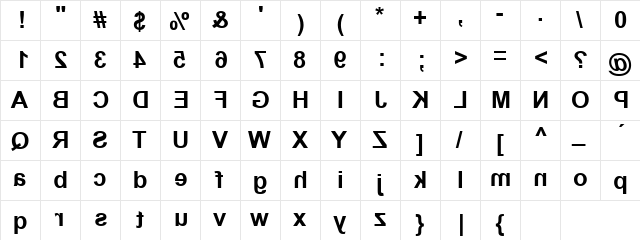
Cluster Regular
Design Context for Cluster Typeface
Cluster takes a measured approach to typography — its balanced proportions and neutral character make it a reliable workhorse for both digital and print work.
Pro Tip: Use Cluster in both headline and body roles to test its range before committing to a single application.